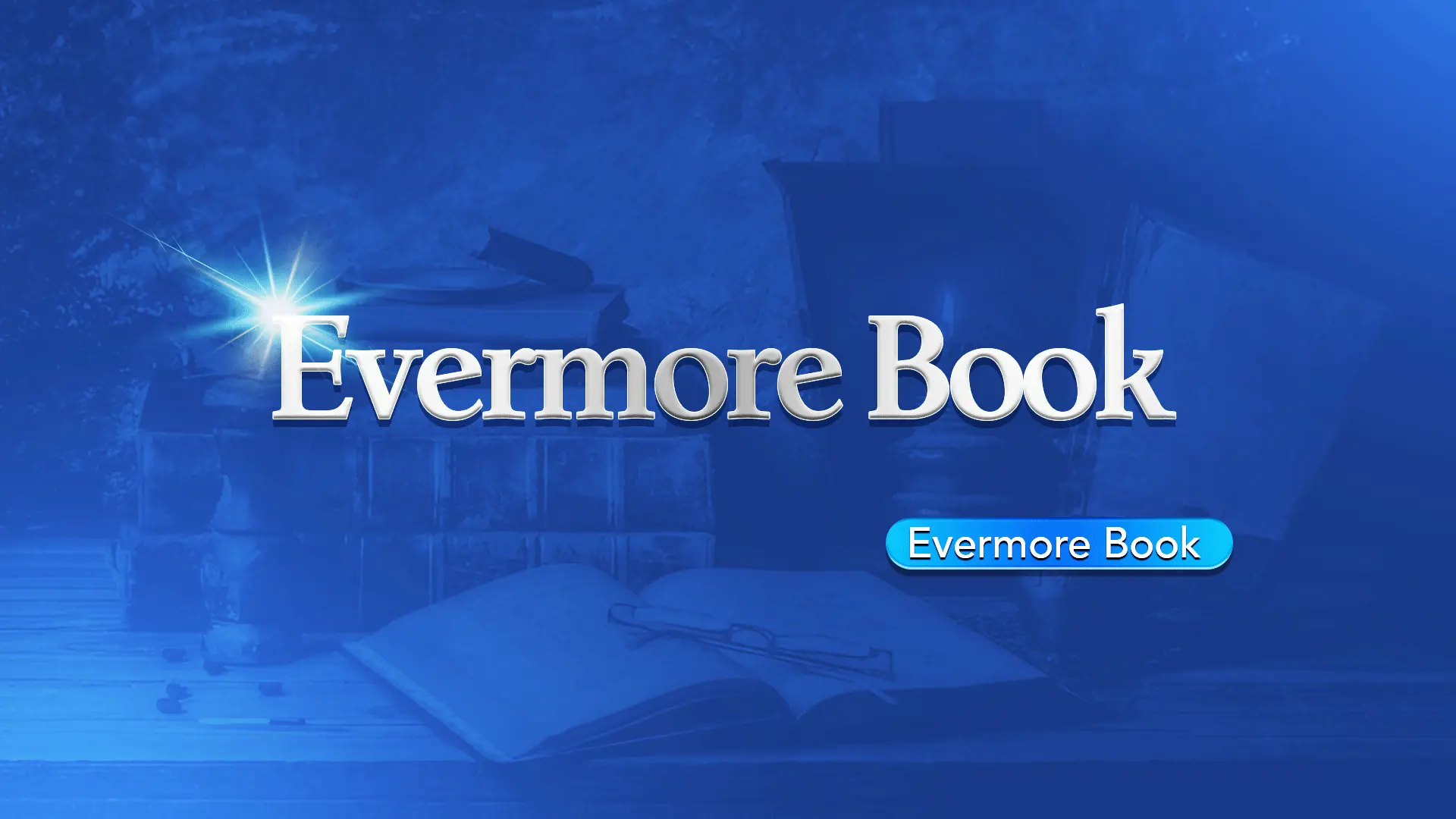
The Evermore Book font family may be ideal for you if you enjoy working on an artistic design project. The lively, expressive look of this typeface, which was created by LyonsType, makes it ideal for Evoking a vintage/classic feel, Book covers and titles, Invitations and stationery, Artistic and creative projects and other light-hearted visual projects.
Bold, Bold Italic, Regular are the four primary font styles of the Evermore Book font family. You may build dynamic, visually appealing text layouts with the distinct flair that each style offers. With crisp, readable lines and a relaxed tone.